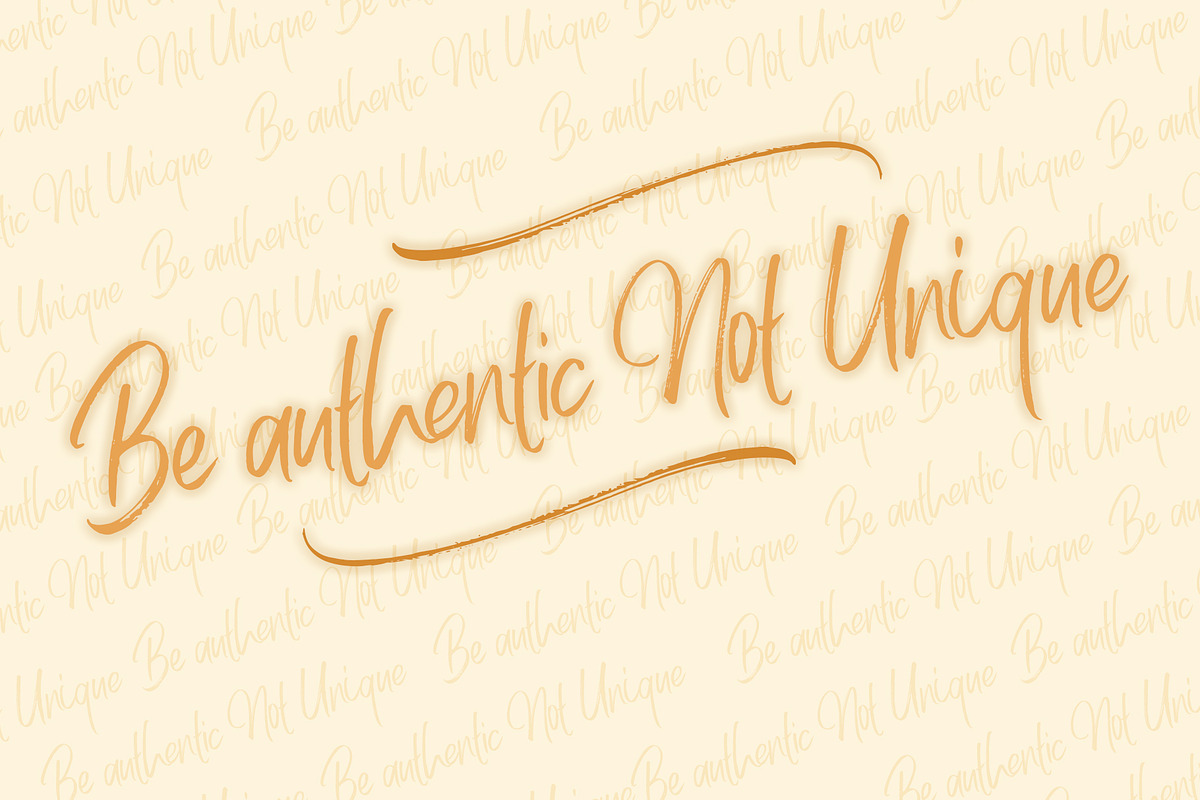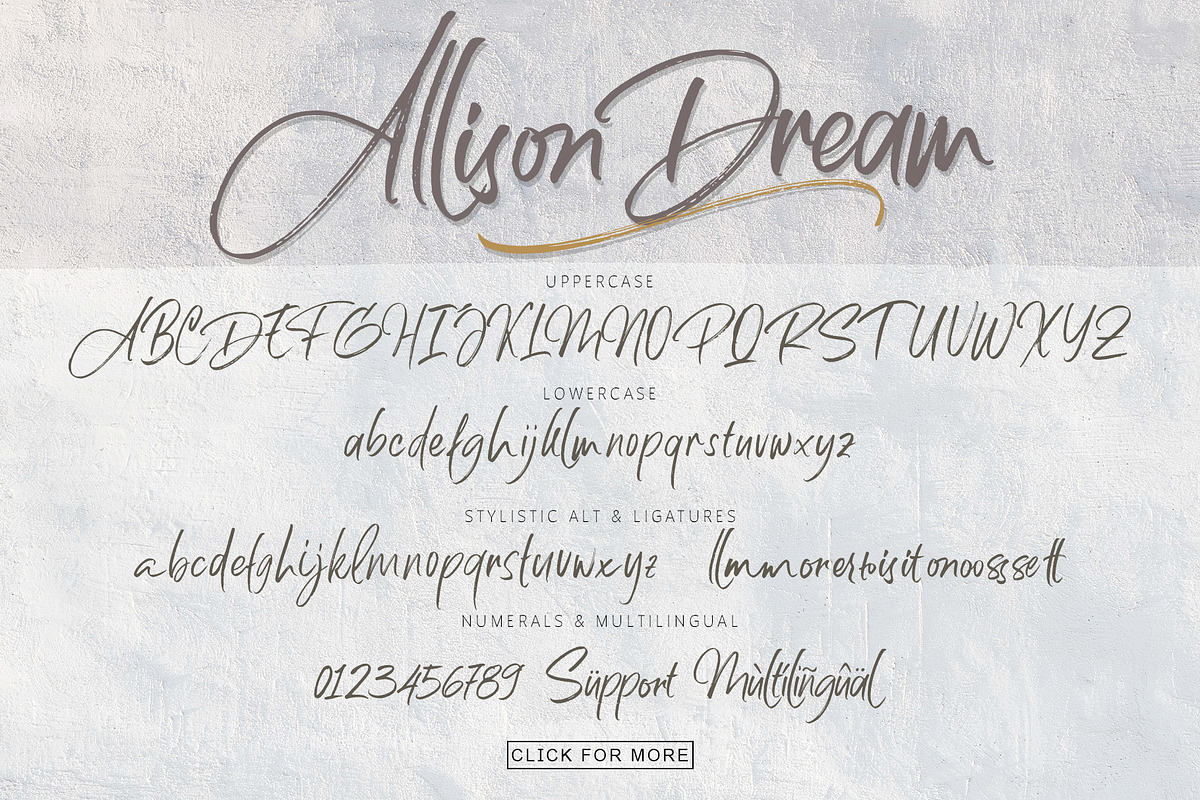
Allison Dream
We introduce our product called Allison Dream. The Allison Dream font is a modern Hand lettering. We give you a swash to make your design look more awesome. Allison Dream font is great for logotype, Branding Design, Logo Design, Digital Lettering Arts, T-Shirt/Apparel, Poster, Magazine, Signs, Advertising Design, wedding invitation and any hand lettered needs.
Allison Dream font Features :
- Upper and Lowercase Standard Characters, Punctuation, Numerals and Multilingual.
- Ligatures and Stylistic Alternates.